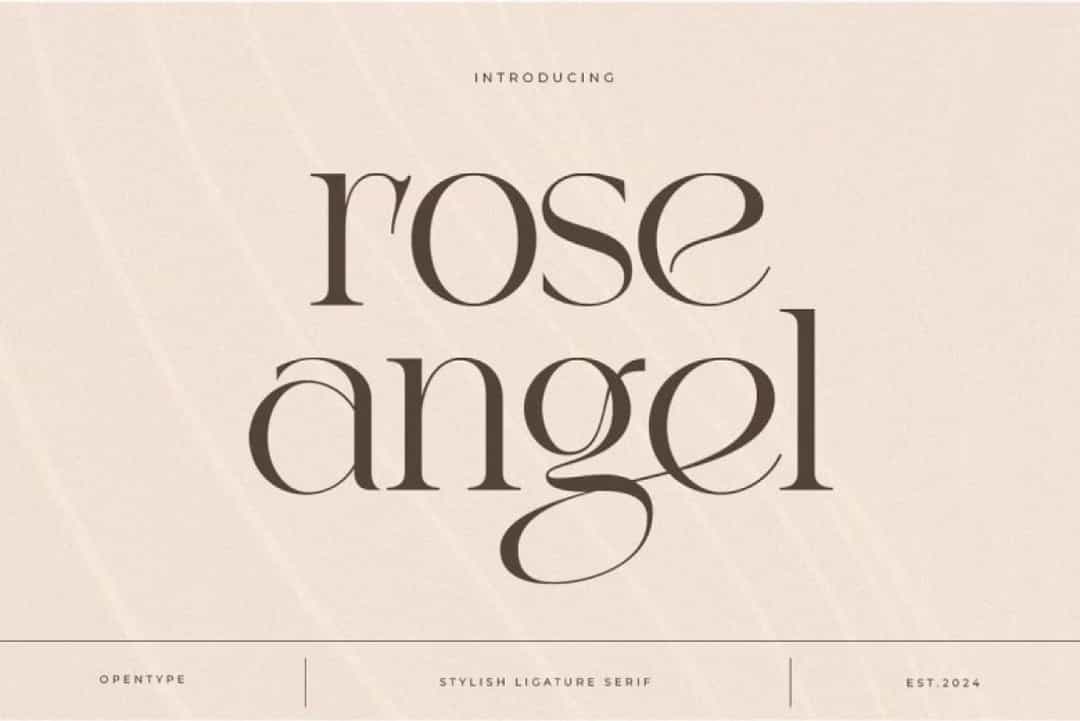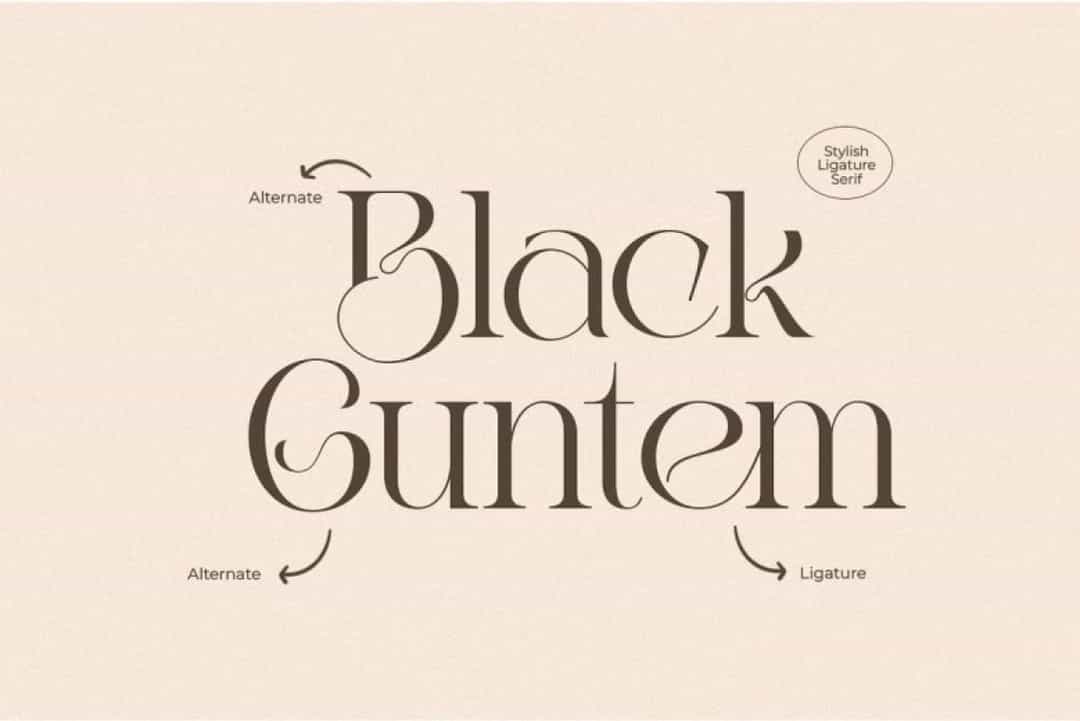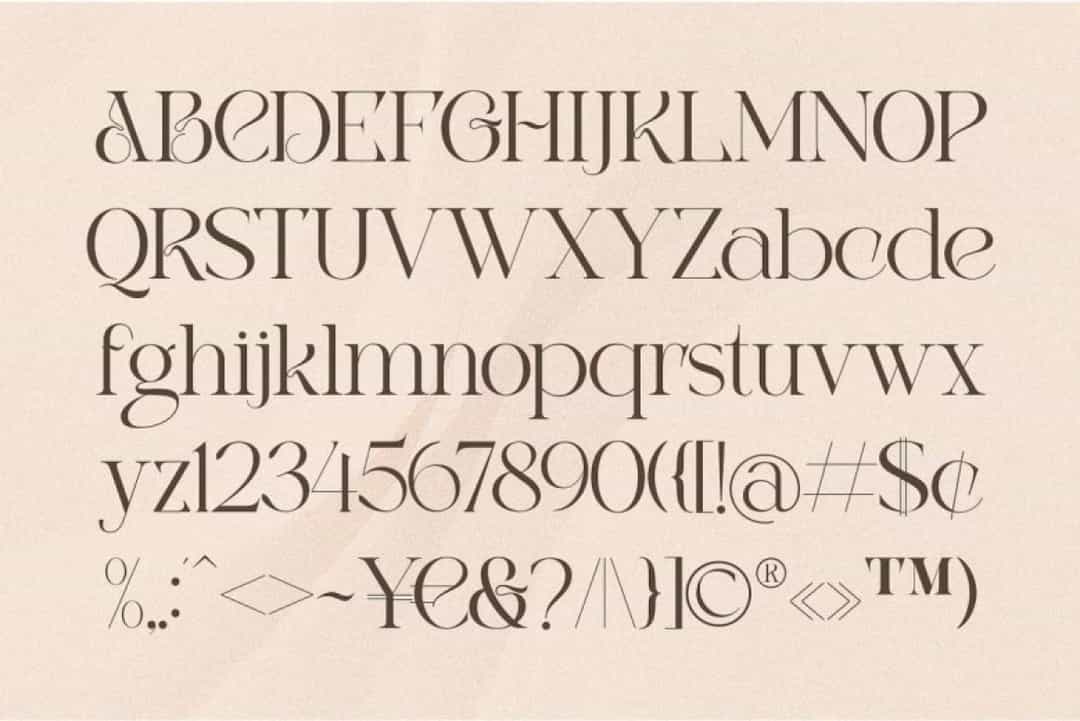
Rose Angel Ligature Serif Font is an elegant font with graceful strokes of thick and bold strokes that come together seamlessly, accented with elegant ligatures. Every character represents this striking balance between thinness and sleekness.